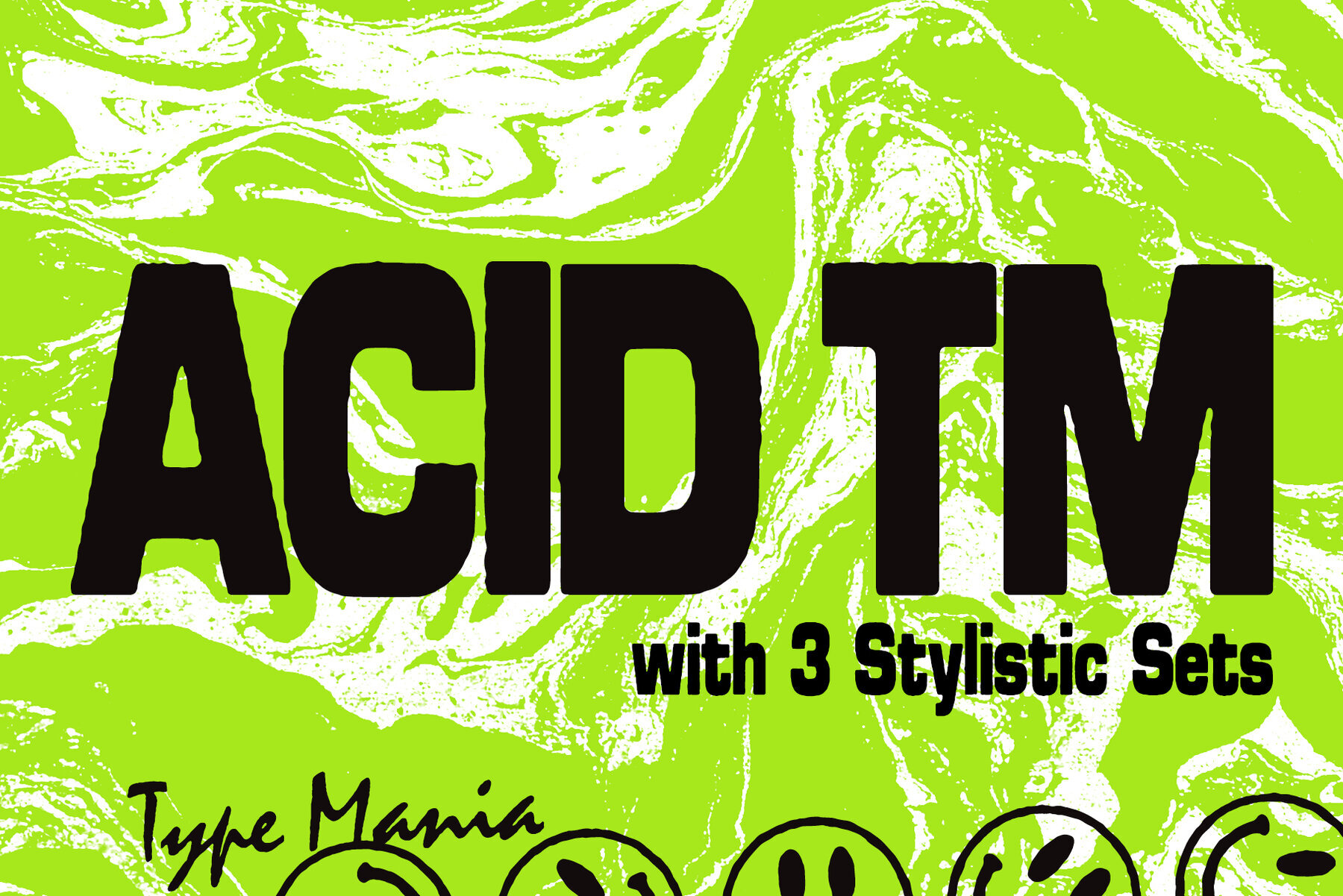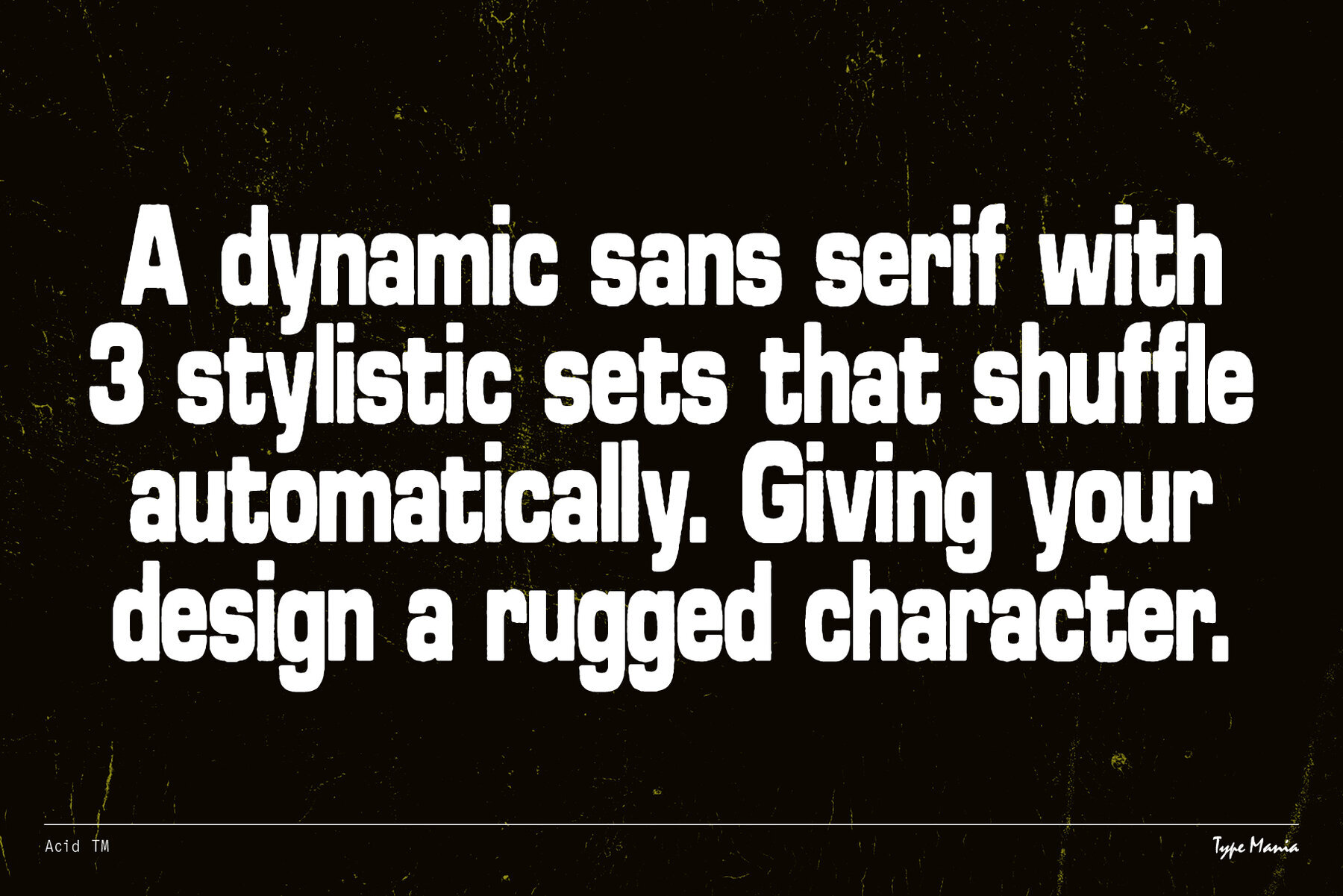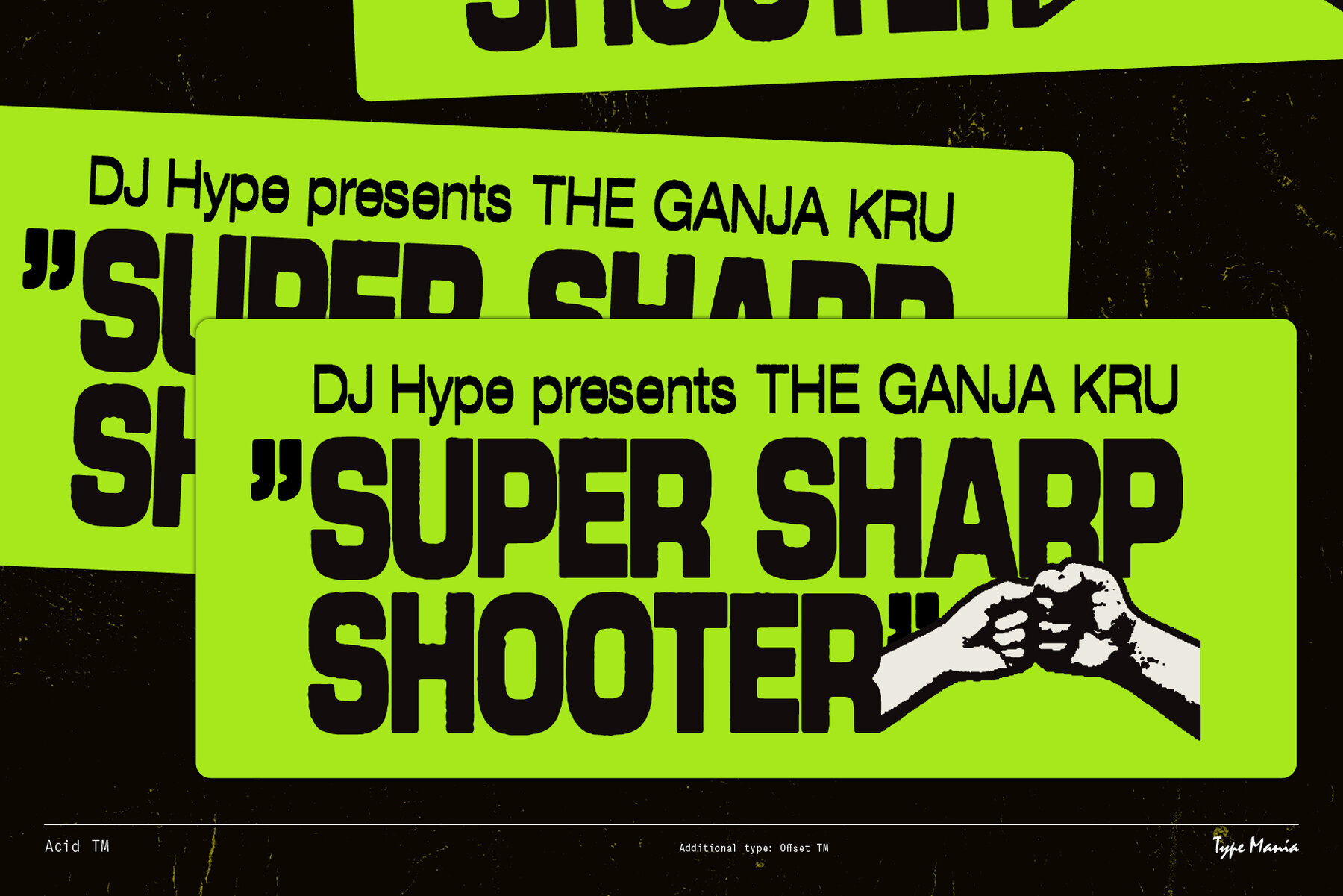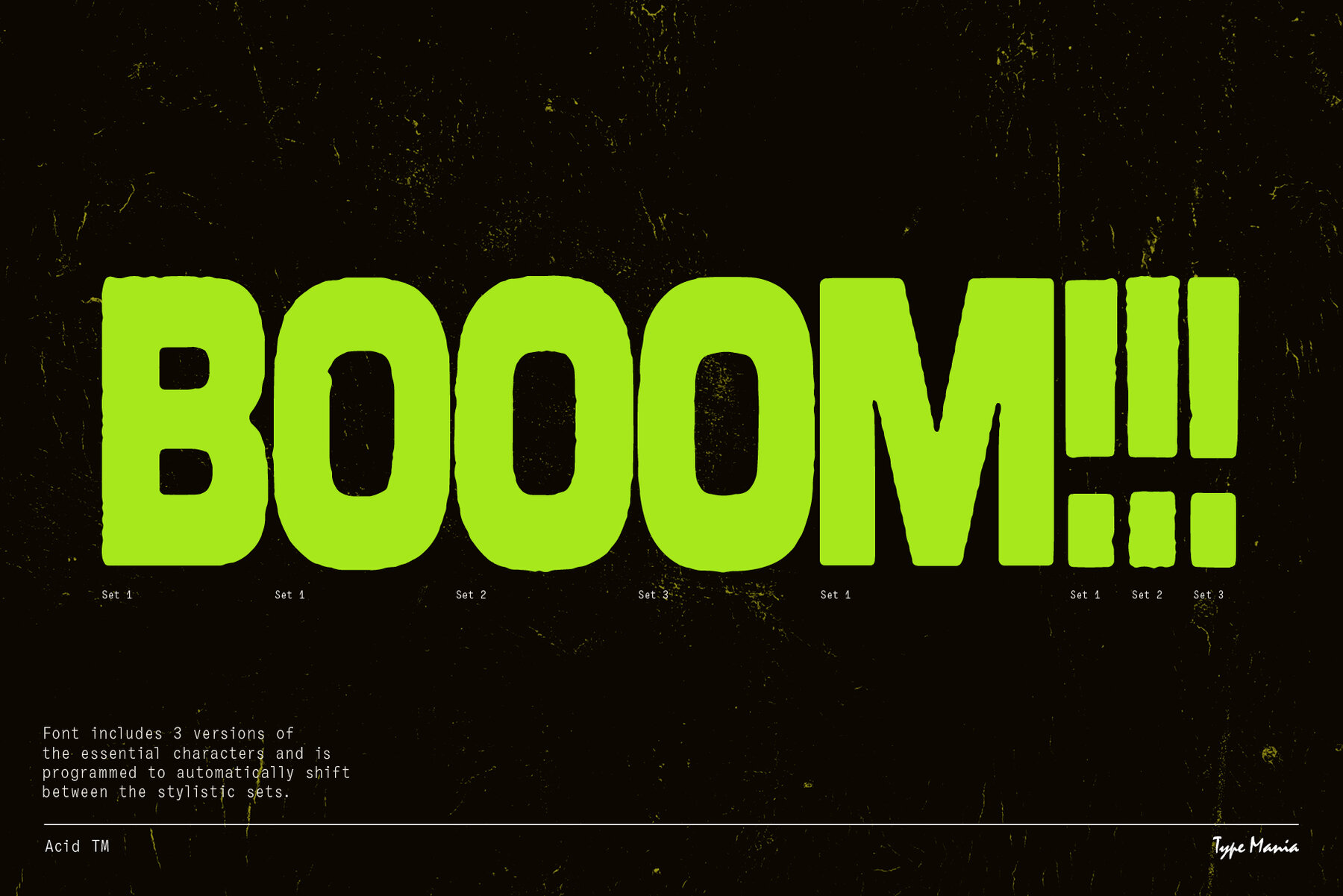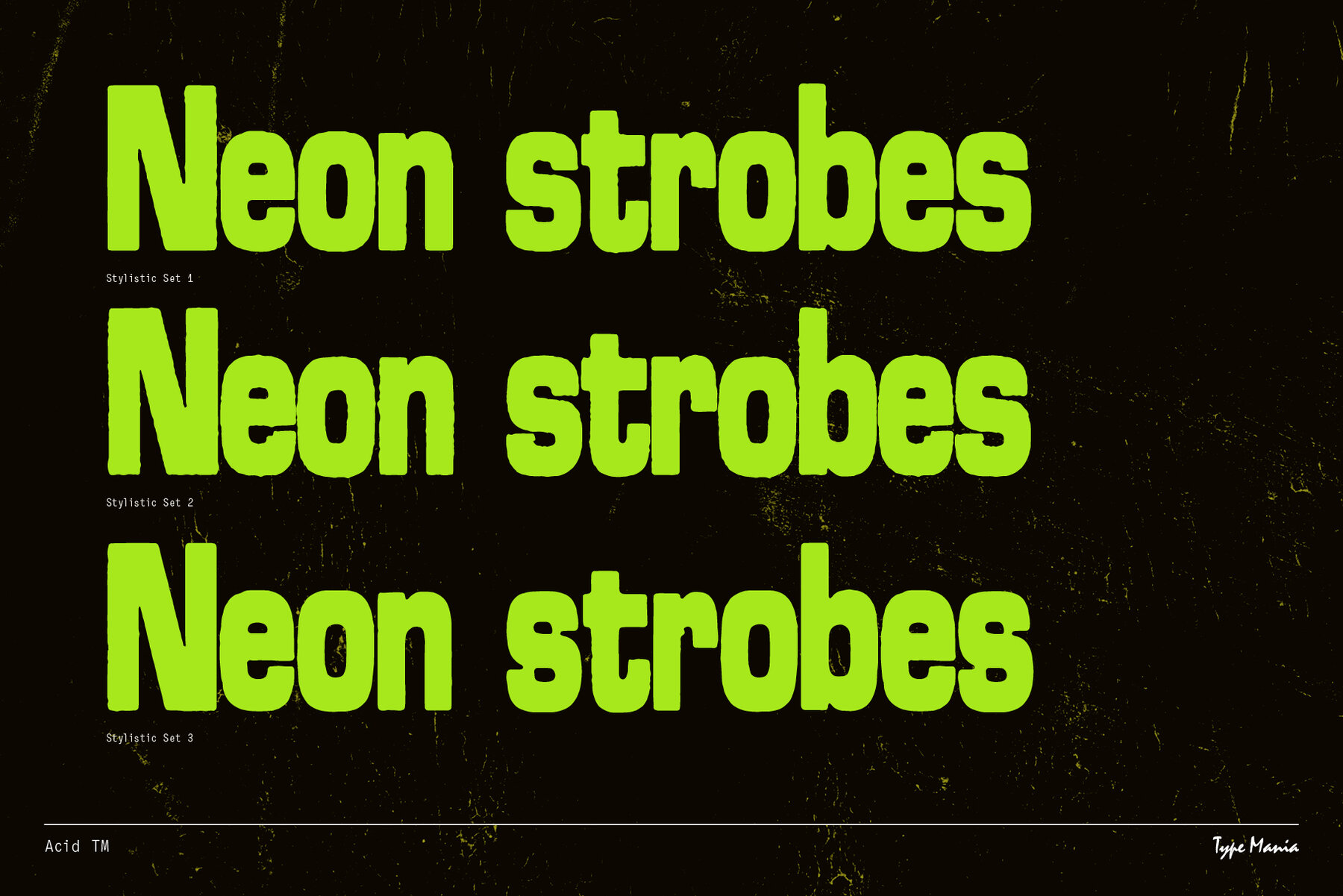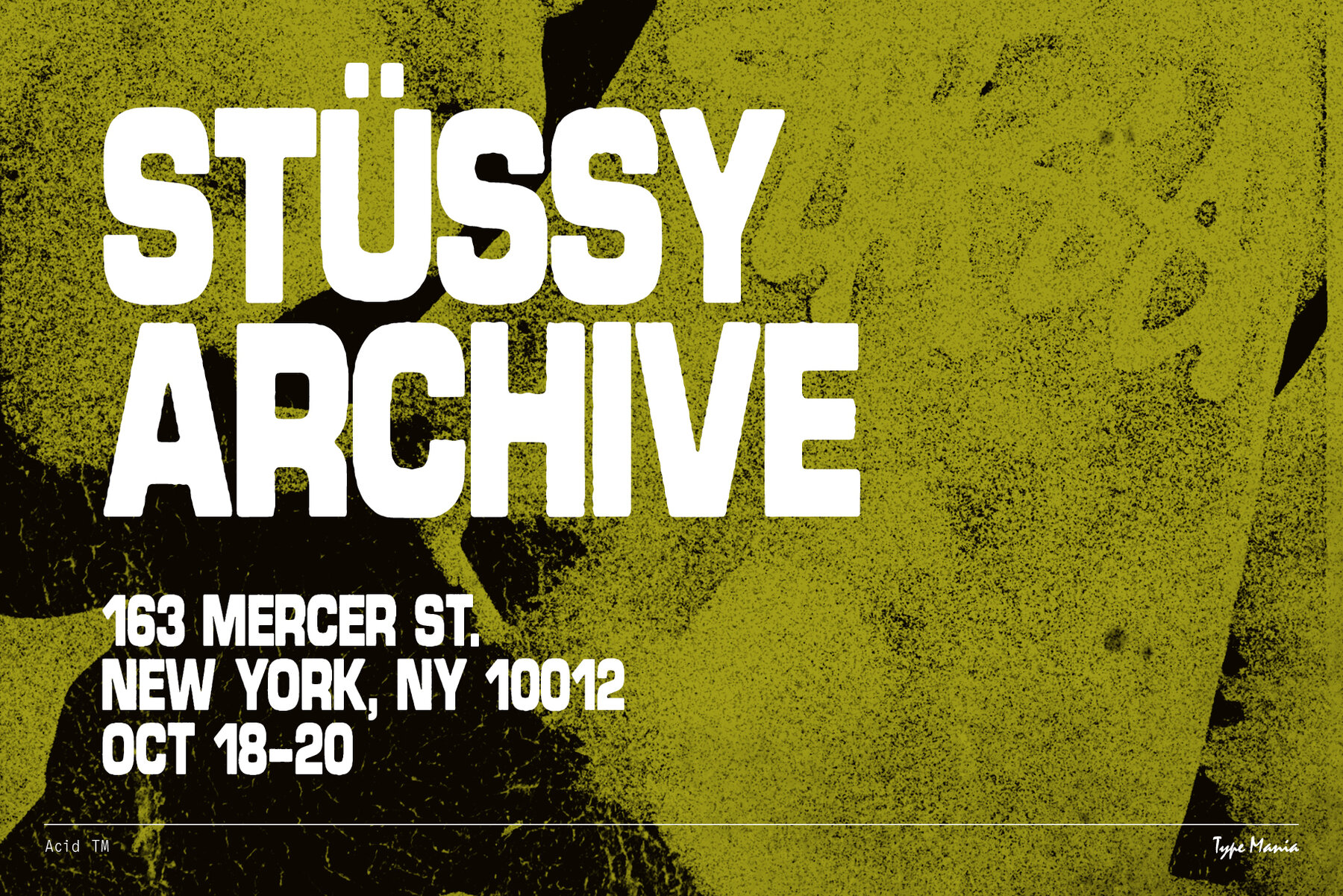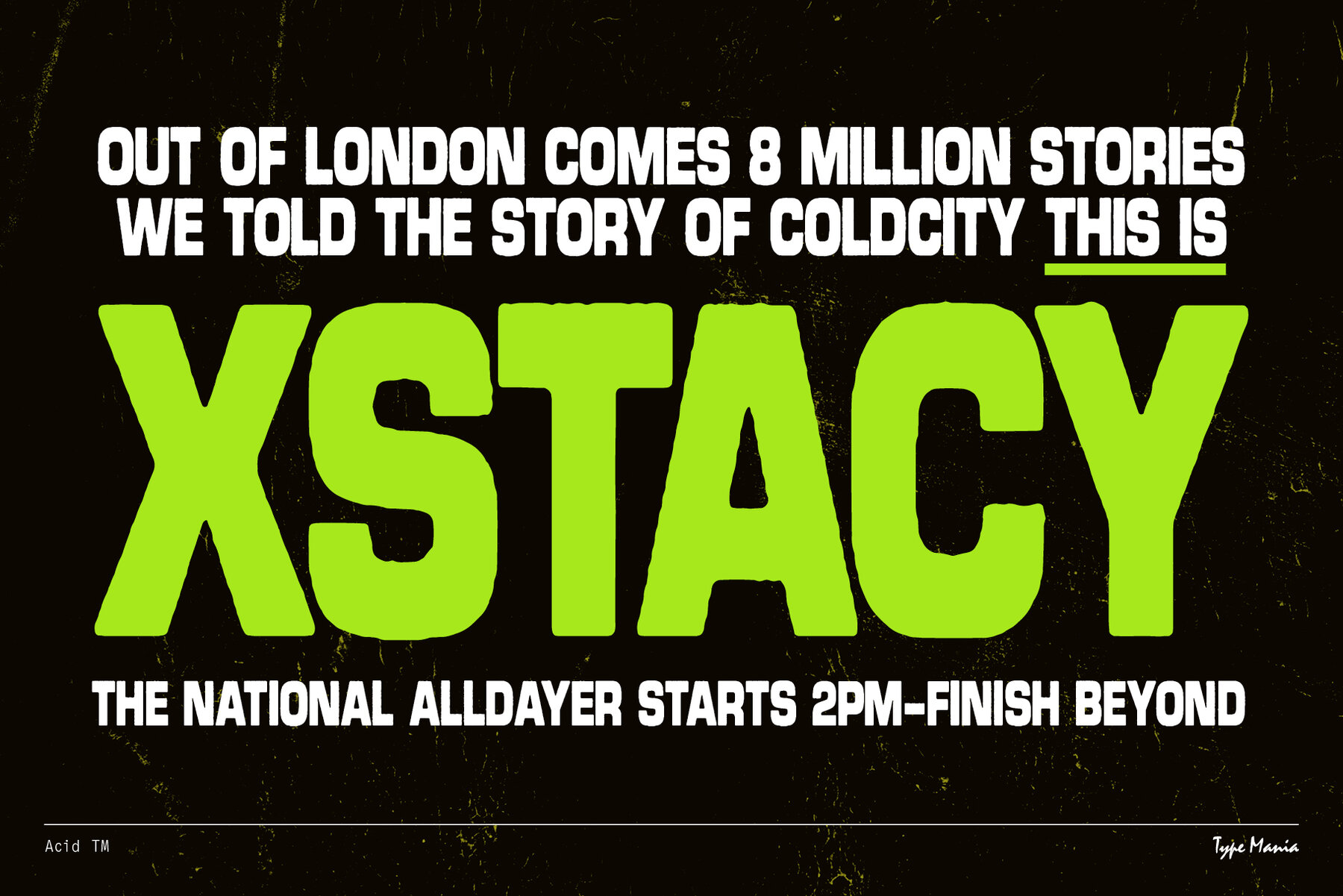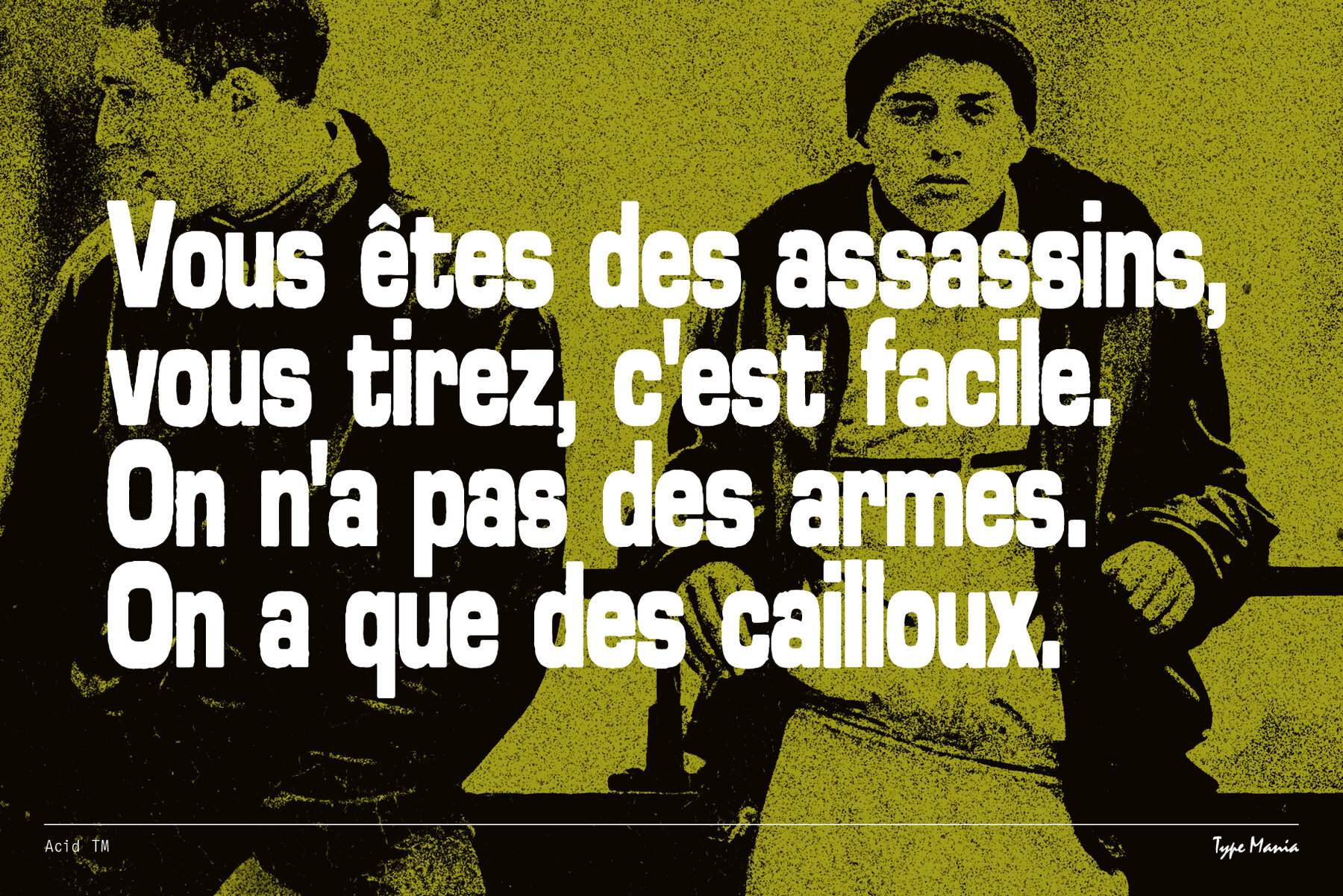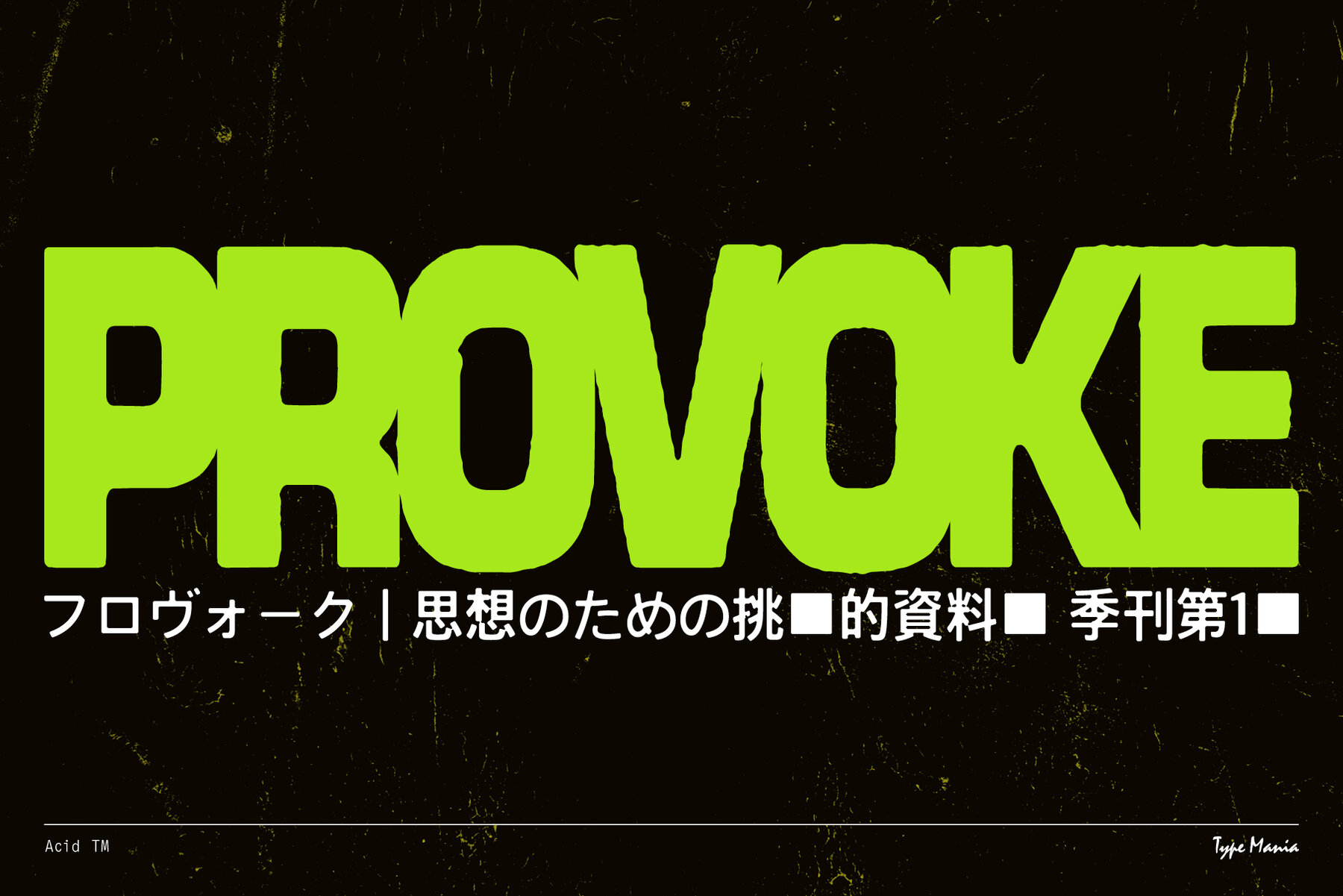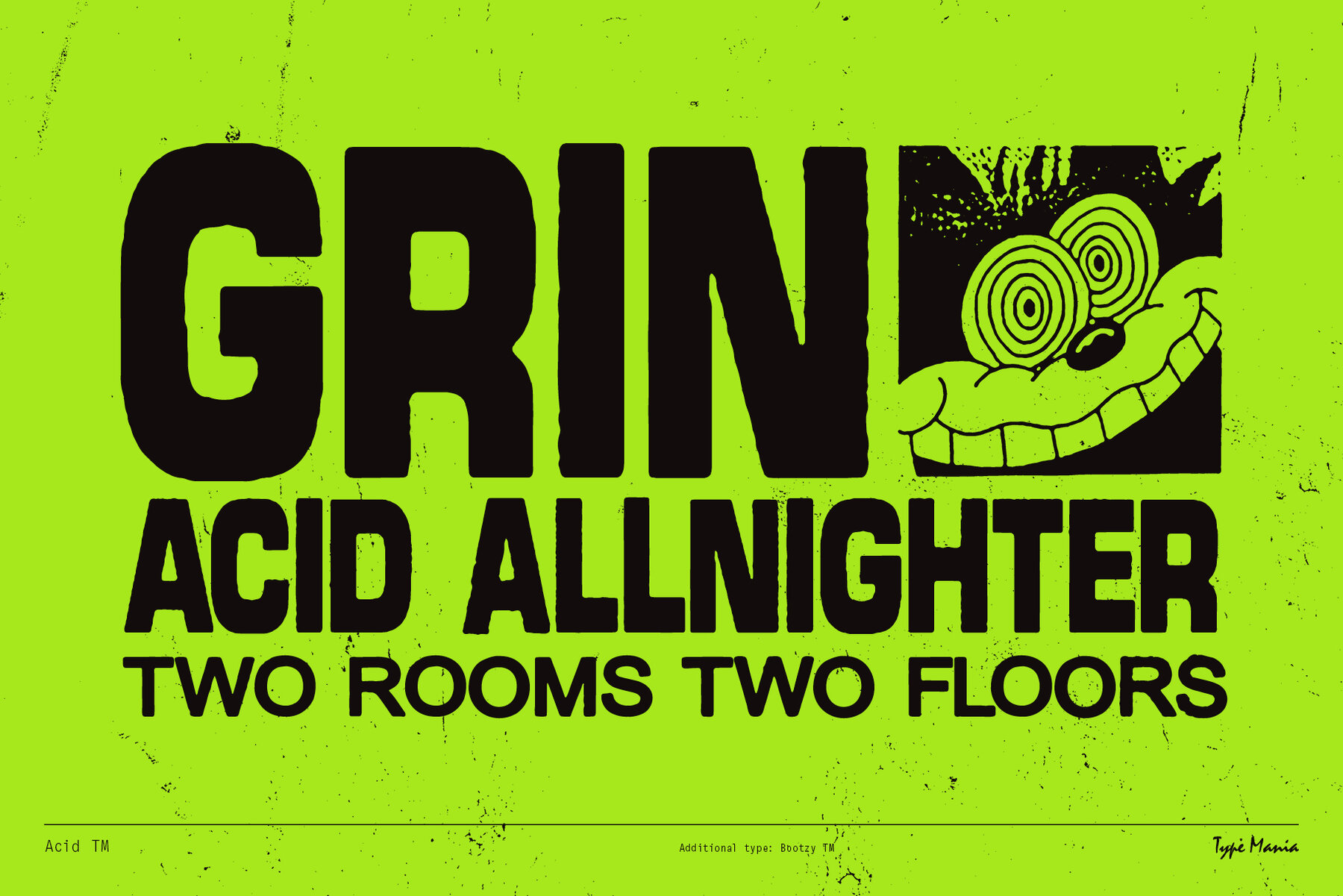
Acid TM Font
Acid TM Regular
Acid TM is a rugged geometric sans serif. Perfect for your flyer, record cover or t-shirt design. It includes three stylistic sets of all the essential glyphs, which shift automatically to add character and texture. OpenType features